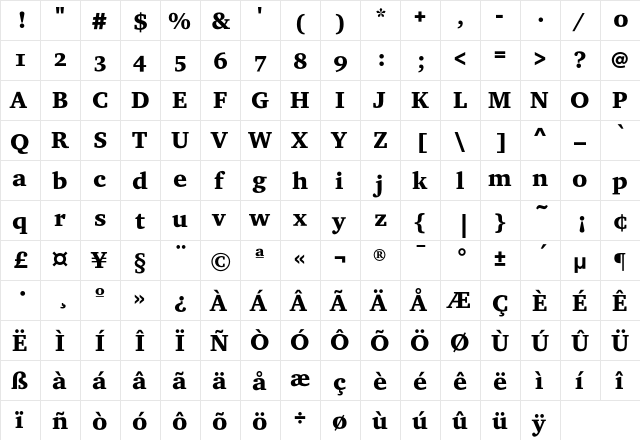
CharterEF BlackOsF
Design Context for CharterEF Typeface
CharterEF offers clean, dependable letterforms without strong stylistic allegiance, making it a practical choice for designers who need flexibility.